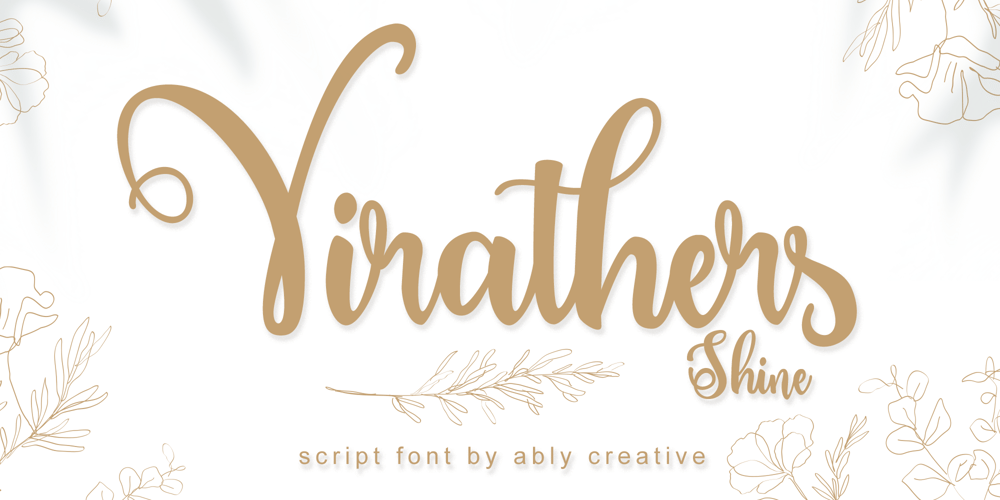
Virathers Shine Font Family was designed by Amrullah Medan, Amrullah, Dedi Purwanto and published by Ably Creative. Virathers Shine contains 1 styles and family package options. Virathes shine font feels equally charming and elegant and romantic script font that features flowing characters. It looks stunning on wedding invitations, thank you cards, quotes, greeting cards, logos, business cards and every other design which needs a handwritten touch. This font is encoded which means you can access all and with ease!